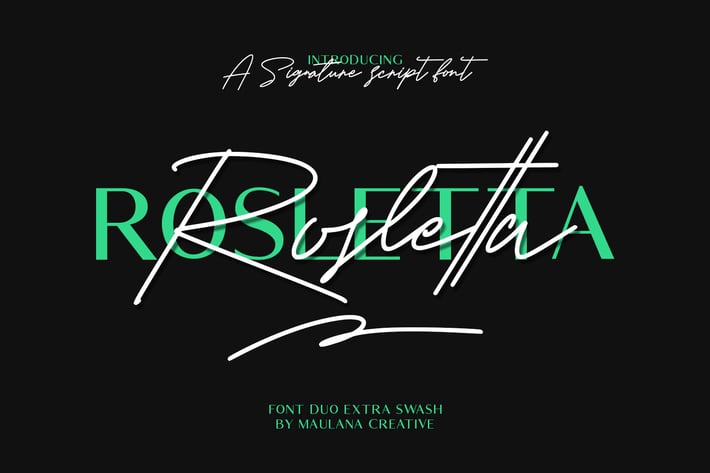
Rosletta Signature Font Duo Extra Swash
Give your designs an authentic handcrafted feel. Rosletta Signature Font Duo Extra Swash is perfectly suited to signature, stationery, logo, typography quotes, magazine or book cover, website header, clothing, branding, packaging design and more.